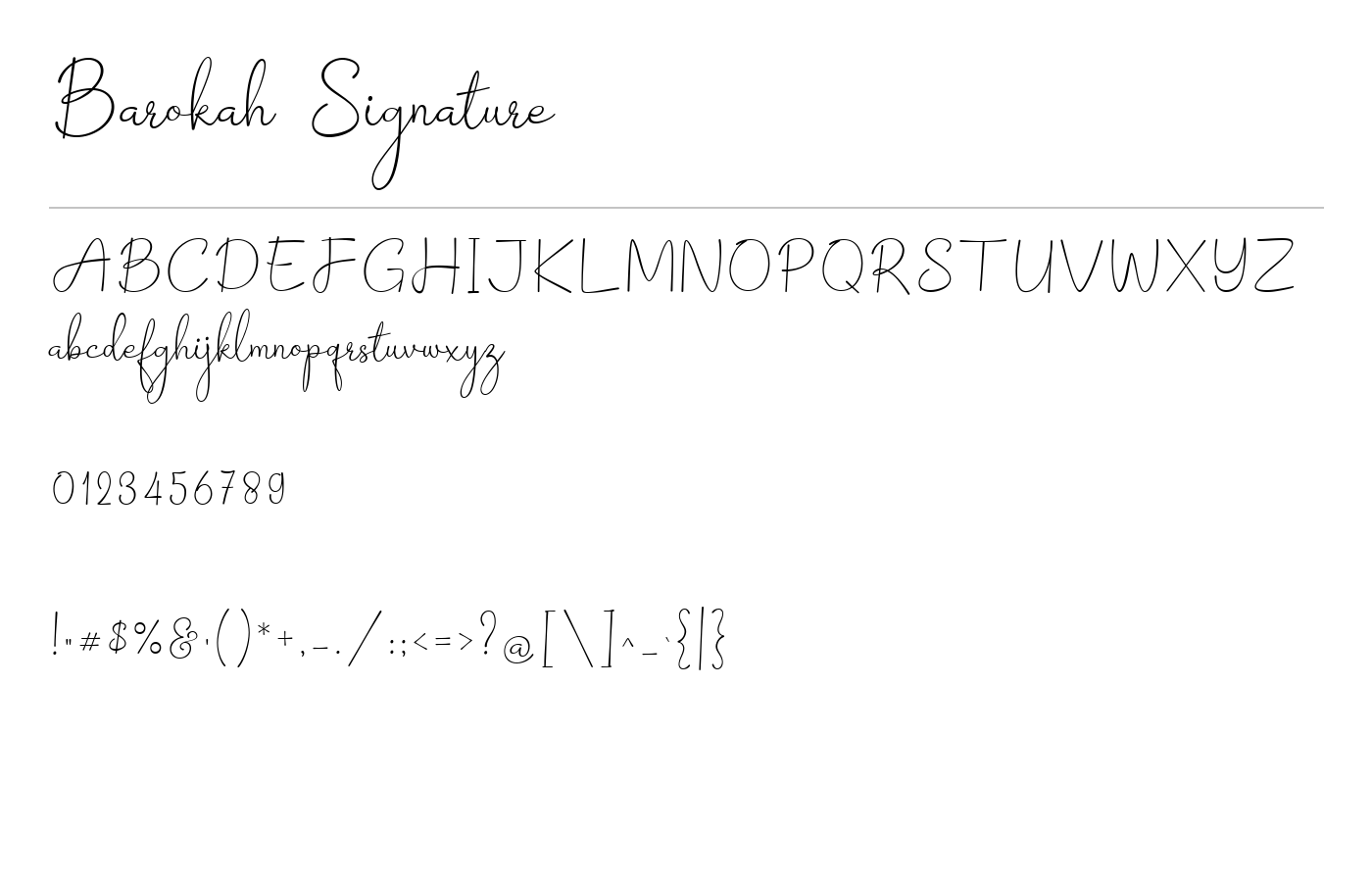
Barokah Signature is a delicate, elegant handwritten script font featuring thin, flowing strokes that mimic natural handwriting with a refined, personal touch. Its slender letterforms and subtle variations in line thickness give it a charming, sophisticated feel, making it ideal for branding, invitations, and stylish editorial use where a graceful, intimate look is desired. This font works beautifully in contexts that require a modern yet approachable signature style.
Barokah Signature Font
About Barokah Signature Font
| Font family | Barokah Signature Font |
| Designer | Alifinart Studio |